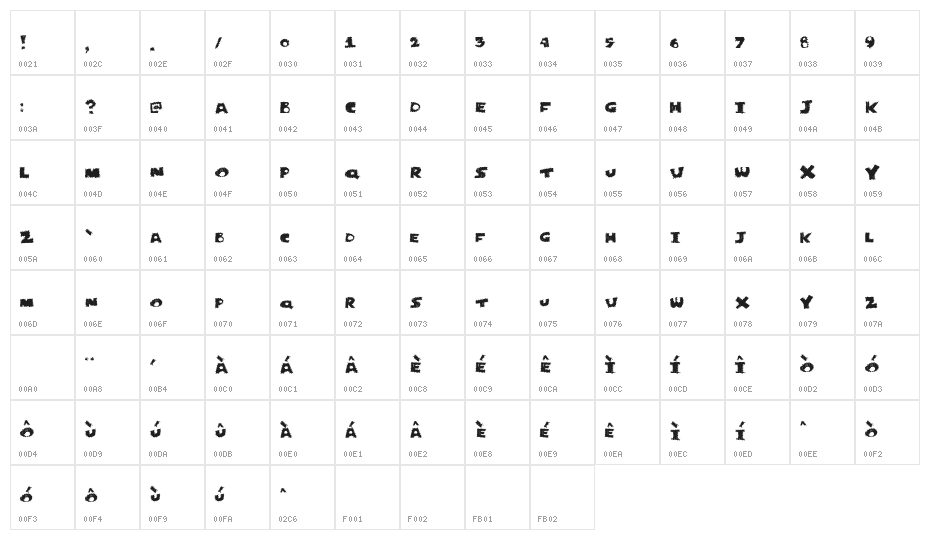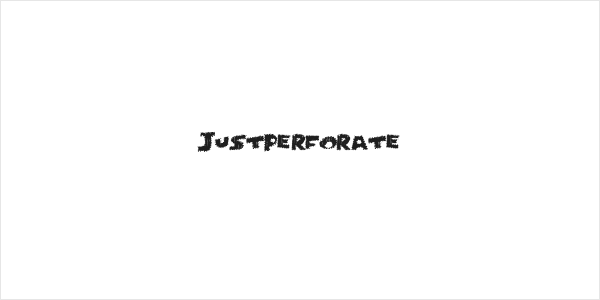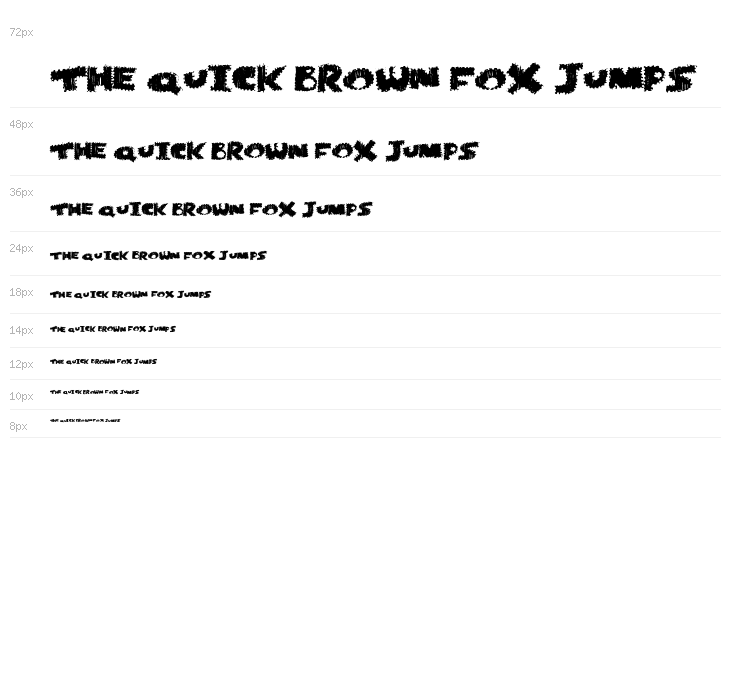
JustPerforate Font
JustPerforate Description
This font features a unique, perforated design that gives each character a textured, edgy appearance. The letters are bold and have a playful, almost chaotic style, with irregular edges that mimic a torn or shredded effect. This creates a dynamic and eye-catching look, making it ideal for creative and unconventional projects. The uppercase and lowercase letters maintain this distinct style, with numbers and special characters following suit. The overall design is consistent across all characters, providing a cohesive yet striking visual impact.
| Proposed Projects | Ideal for posters, album covers, event flyers, and any project needing a bold, creative touch. |